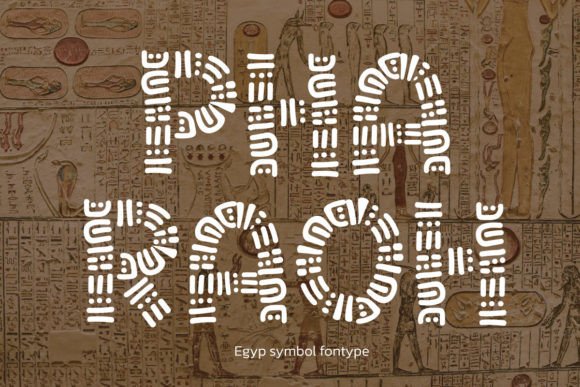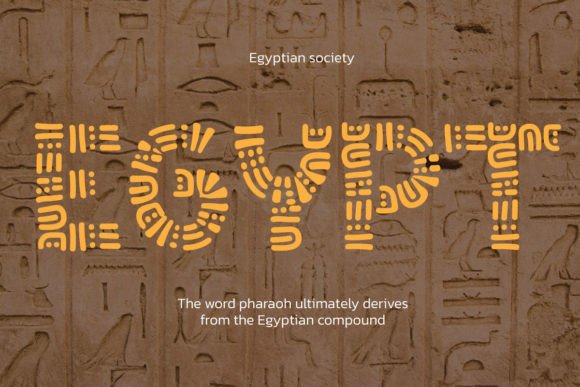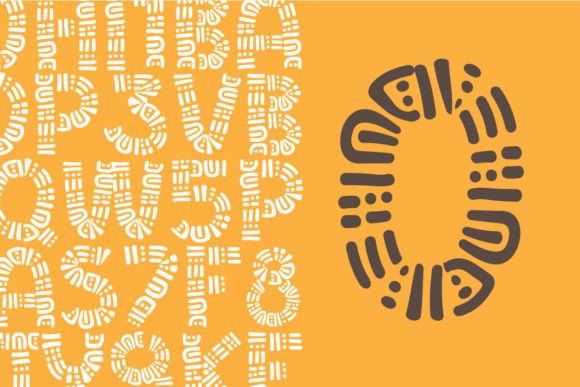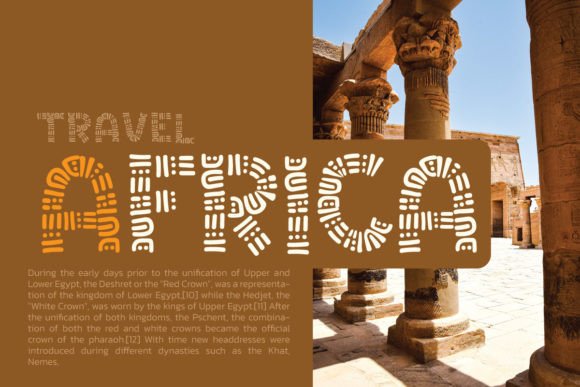
Pharaoh Font
About the Pharaoh Font
Welcome to the world of Pharaoh Font, a typeface that will inspire your next great project. Pharaoh is vintage African sign font style.
Pharaoh is perfect for any titles, logo, product packaging, branding project,
megazine, social media, wedding, or just used to express words above the background.
Pharaoh’s bold, vintage style is ideal for headlines, logos, and short impactful statements on packaging or posters. Its strong character makes it perfect for brands conveying heritage, luxury, or a sense of adventure. Avoid using it for extended body text or UI elements; its highly stylized forms are not legible at smaller sizes or in continuous use.
To complement Pharaoh’s powerful presence, consider pairing it with a clean sans-serif like Montserrat for body copy or a more delicate script font such as Allura for a touch of elegance. Geometric sans-serifs such as Futura can also create a striking contrast, further enhancing Pharaoh’s unique character.
The font’s inherent boldness projects confidence and authority, making it particularly suitable for projects targeting a sophisticated, discerning audience. Avoid pairing it with fonts that are similarly ornate or heavy; simpler, more neutral pairings will allow Pharaoh to remain the focal point.
Pharaoh Font Usage Examples
Pharaoh Font Example